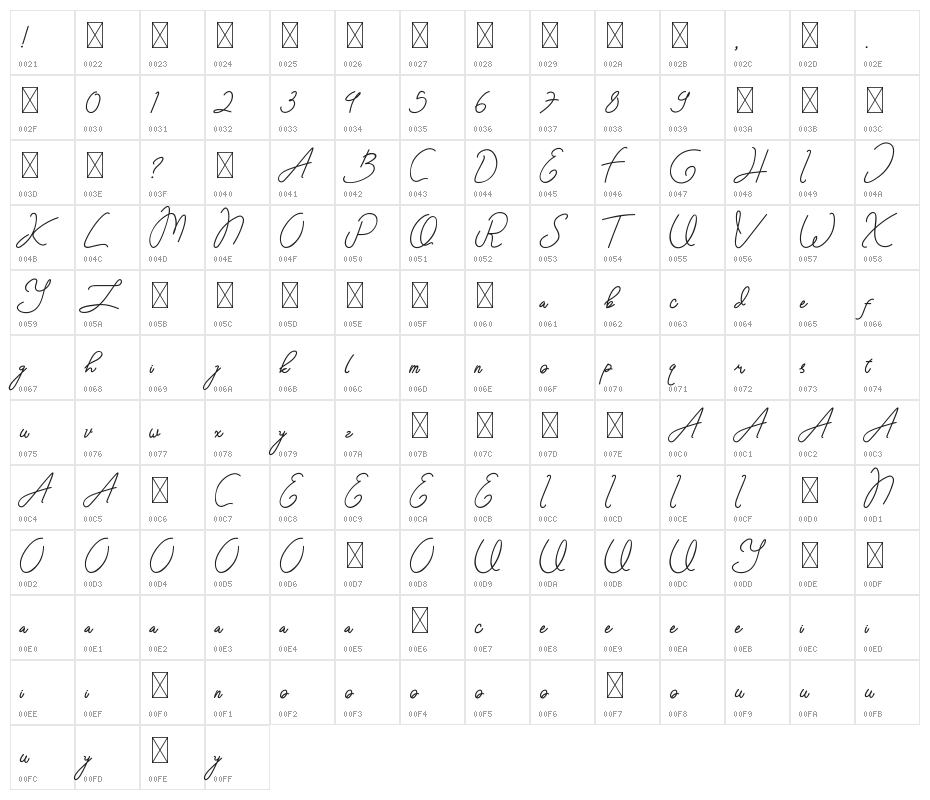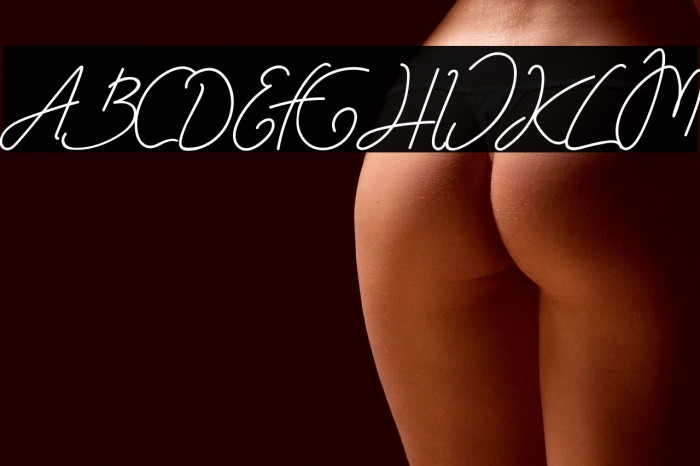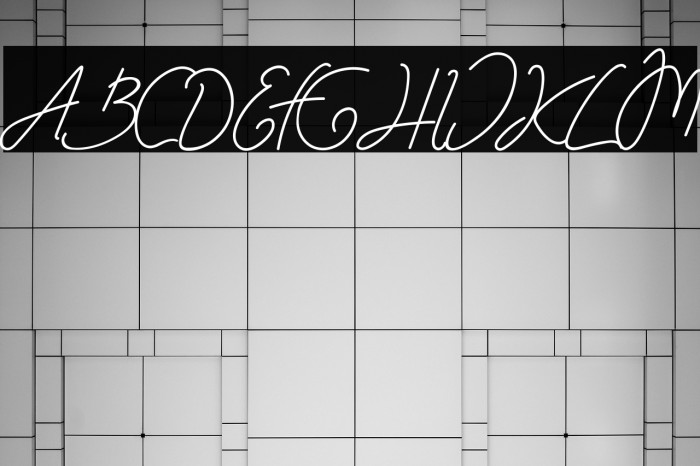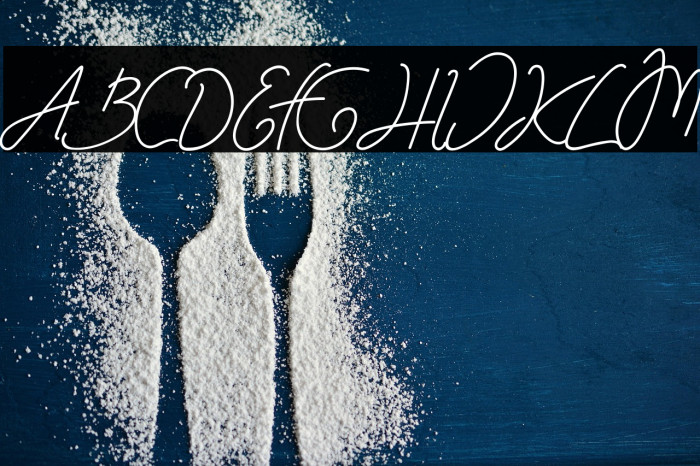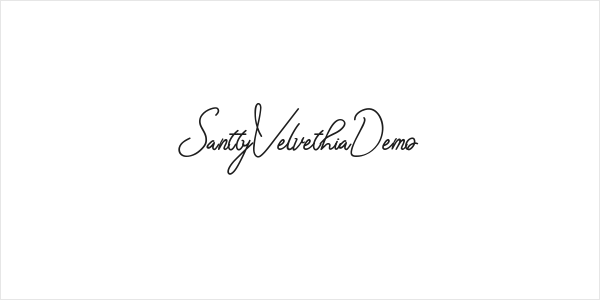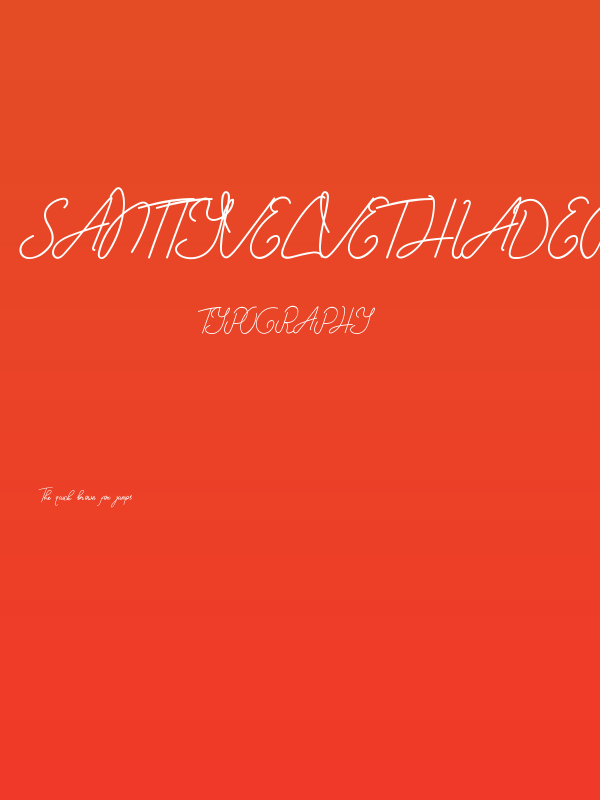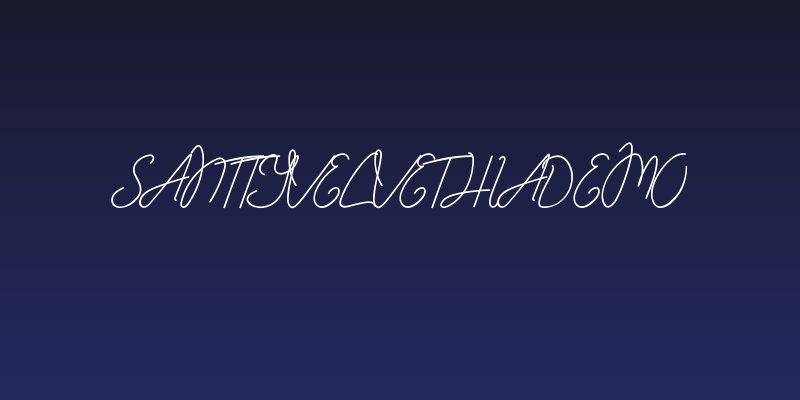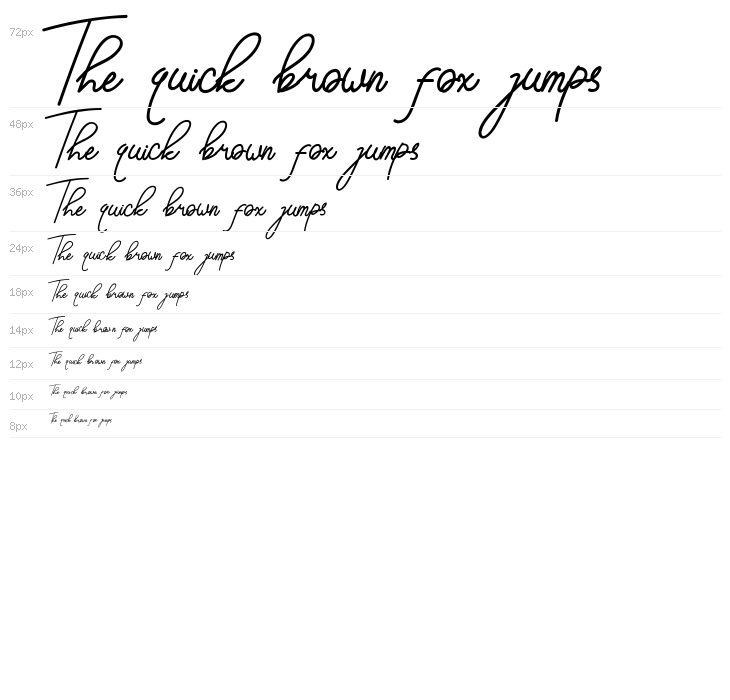
SanttyVelvethiaDemo Font
SanttyVelvethiaDemo Description
This elegant script font features a fluid and graceful design, characterized by its flowing, interconnected letters that mimic the natural movement of handwriting. The uppercase letters are particularly ornate, with sweeping curves and loops that add a touch of sophistication and flair. The lowercase letters maintain a consistent style, offering a harmonious blend of readability and decorative appeal. The numerals are styled to match the overall aesthetic, ensuring a cohesive look across all characters. This font is ideal for projects that require a personal, artistic touch, such as invitations, greeting cards, and branding materials.